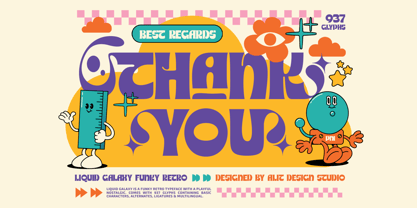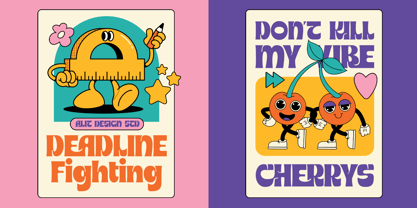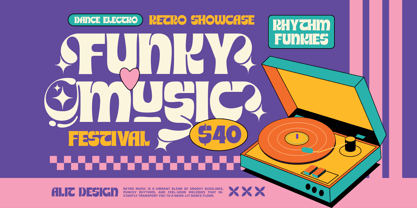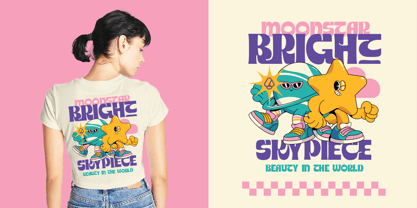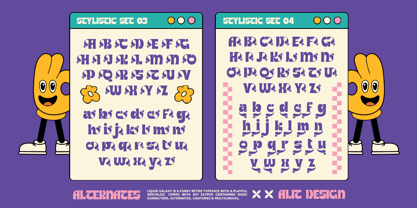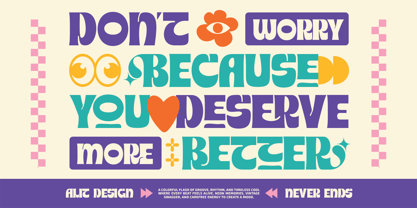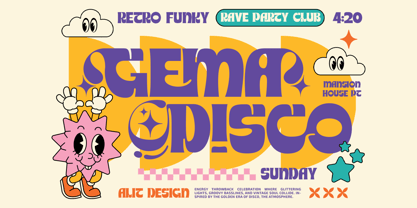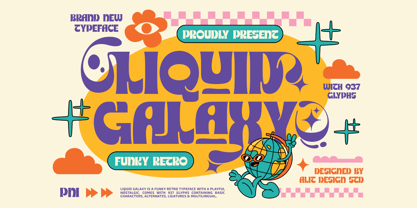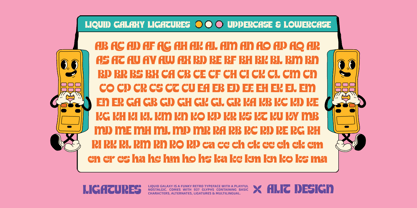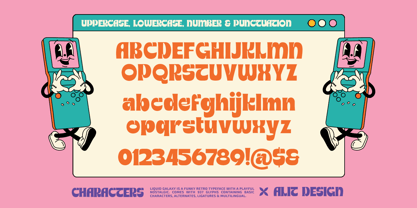
Liquid galaxy
by Alit Design
The Liquid galaxy Font Family was designed by Alit Suarnegara and published by Alit Design. Liquid galaxy contains 1 styles. More about this family
Liquid Galaxy: The Ultimate Funky Retro Typeface Step back into the groove and let your designs flow with Liquid Galaxy—a brand new, ultra-funky retro typeface proudly presented by Alit Design Studio. Liquid Galaxy isn't just a font; it’s a colorful flash of rhythm, nostalgic swagger, and timeless cool. Inspired by the carefree energy of vintage clubbing expos, 70s psychedelic posters, and neon memories, this typeface is built to make every beat of your design feel alive. With its bold, sweeping curves and playful bounce, Liquid Galaxy delivers a massive dose of retro personality while maintaining modern versatility. Whether you are designing a standout streetwear collection, a funky music festival poster, or eye-catching packaging, Liquid Galaxy provides all the tools you need to create a whole mood. 🌟 Unmatched Versatility (937 Glyphs!) Packed with an incredible 937 glyphs, Liquid Galaxy gives you total creative control. We’ve designed this font to be a massive playground for typographers and designers alike: 7 Dazzling Stylistic Sets: Take your typography to the cosmos! Switch up your designs with Stylistic Sets 01 through 07. Add starry sparkles, psychedelic swirls, extended tails, and groovy loops to your letters with just a click. Extensive Ligatures: Keep your typography flowing naturally. Liquid Galaxy includes a huge library of custom uppercase and lowercase ligatures (from AB to ma) to ensure your letter combinations look custom-drawn and perfectly interlocked. Basic & Beyond: Includes a full set of uppercase and lowercase characters, numbers, and complete punctuation. 🛸 Bonus Dingbats No retro design is complete without the right graphics! Liquid Galaxy comes loaded with a bonus set of custom retro dingbats. Instantly add funky flowers, cosmic stars, hypnotic eyes, sparkles, and classic checkerboard patterns to perfectly complement your text. 🌍 Global Groove (Multilingual Support) Take your retro vibes worldwide. Liquid Galaxy features comprehensive multilingual support, ensuring your message translates beautifully across different languages with fully accented characters. 🎯 Perfect For: Apparel & Streetwear: Create killer t-shirt graphics and merchandise (like the Moonstar Bright Skypiececoncept!). Event Branding: Posters, flyers, and banners for parties, DJ sets, and clubbing expos. Product Packaging: Food, beverage, and cosmetic brands looking for a playful, nostalgic edge. Social Media & Web: Eye-catching quotes, YouTube thumbnails, and vibrant Instagram campaigns. Logos & Branding: Instantly recognizable and memorable brand identities. What’s Included: Liquid Galaxy (Uppercase, Lowercase, Numbers, Punctuation) 937 Total Glyphs Stylistic Alternates (Sets 01 - 07) Extensive Ligatures Bonus Retro Dingbats Multilingual Support Inject some timeless cool and carefree energy into your next project. Get groovy with Liquid Galaxy today!
Designers: Alit Suarnegara
Foundry: Alit Design